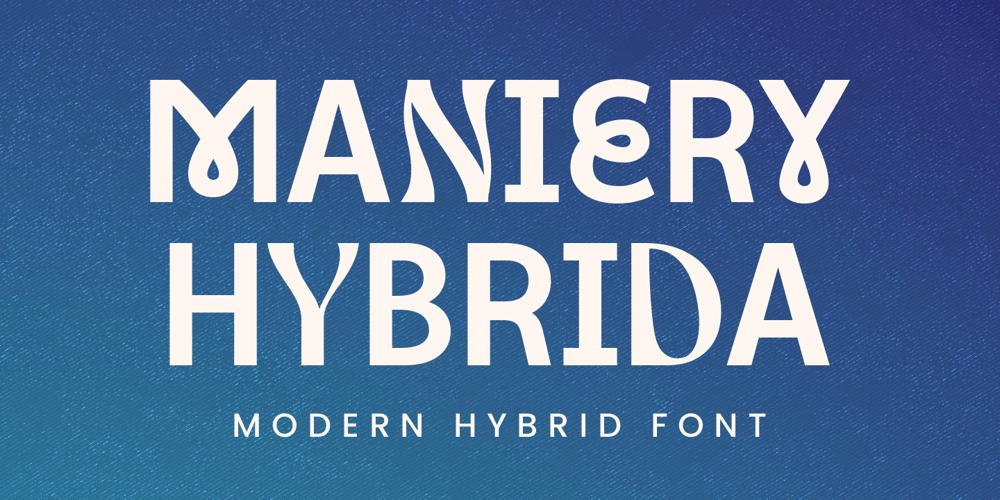
Maniery Hybrida Font Family was designed by Novitasari Romli and published by Novitype. Maniery Hybrida contains 1 styles and family package options. Introducing Maniery Hybrida, a hybrid font that combines elements of loopy style, sans serif, and weird serif. This unique blend creates a fun and fresh look that is perfect for trendy display and headline designs.A perfect choice to be used on posters, branding, decals, mobile apps, or flyers. Maniery Hybrida adds a touch of creativity and uniqueness to your projects, making them visually appealing and aesthetically pleasing.